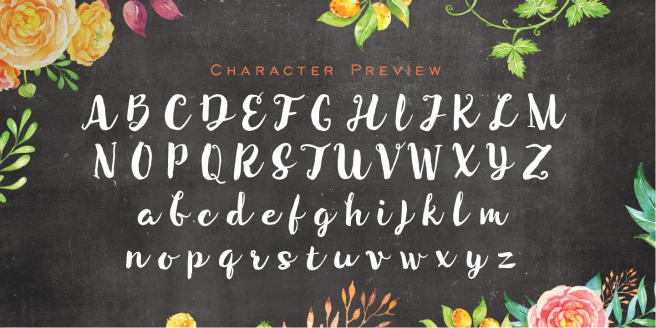
Our March 2016 issue of Font Faves features Auburn from Albatross, Choplin from René Bieder, and Neology from Shinntype.
Auburn is a beefy brush script with unusual cursive flair. Useful for weddings and invitations, it combines all that we love about modern calligraphy and brush scripts, and even includes some great extras!
Auburn
Albatross
A great geometric slab serif, Choplin by René Bieder is built on simplicity and neutrality, and fits a variety of uses. If you’re looking to do big bold titling or brand identity in a modern or classic way, this is an option you should strongly consider.
Choplin
René Bieder
Neology, from Shinntype, is a wonderful sans serif built on an interesting premise: each font has both geometric and grotesque glyphs that pseudo-randomly alternate. This creates incredibly interesting typesetting for those confident graphic designers. Perhaps a little risky for the blue suit crowd, but we highly recommend it anyway.
Neology
Shinntype